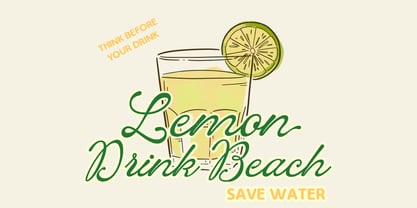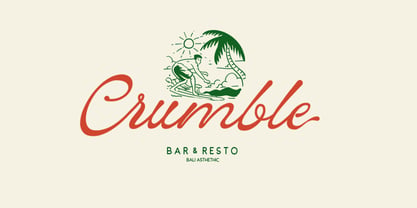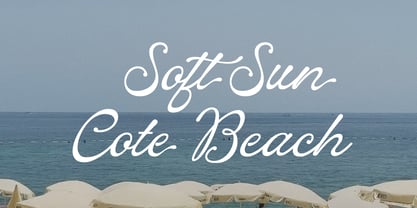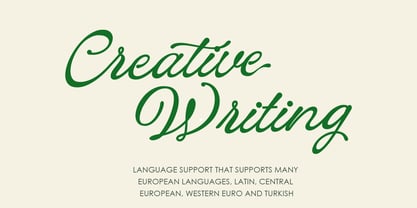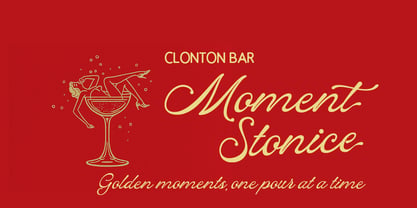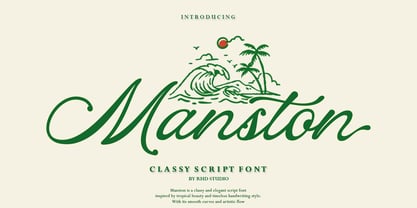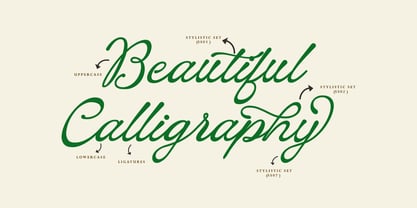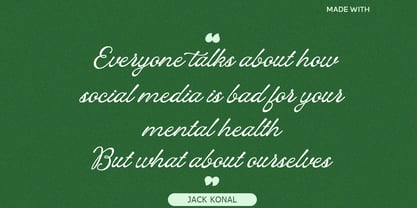
Manston
La famille de polices Manston a été conçue par Rahmad Rizky et publiée par Rhd Studio. Manston contient 1 styles. En savoir plus sur cette famille
Manston – Classy Script Font Manston is an elegant script font infused with a captivating tropical vibe. Inspired by the beauty of beaches, the rhythm of ocean waves, and the spirit of endless vacations, this font combines a luxurious feel with a relaxed charm. With its smooth curves and artistic flow, Manston is perfect for branding, logos, wedding invitations, product packaging, and other creative projects.